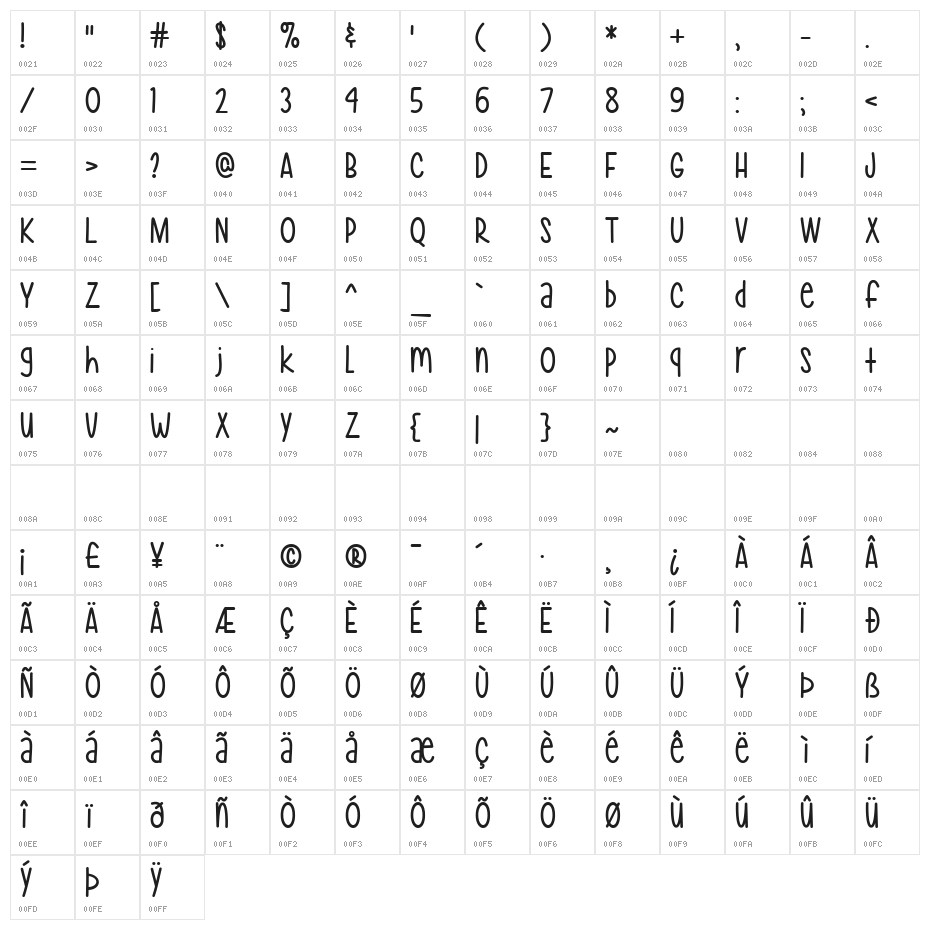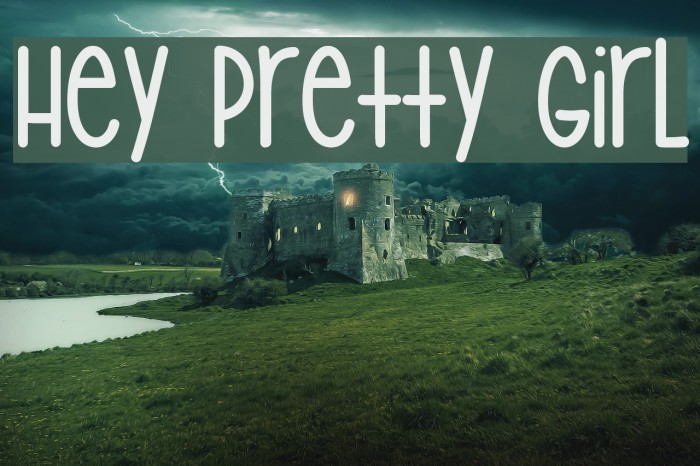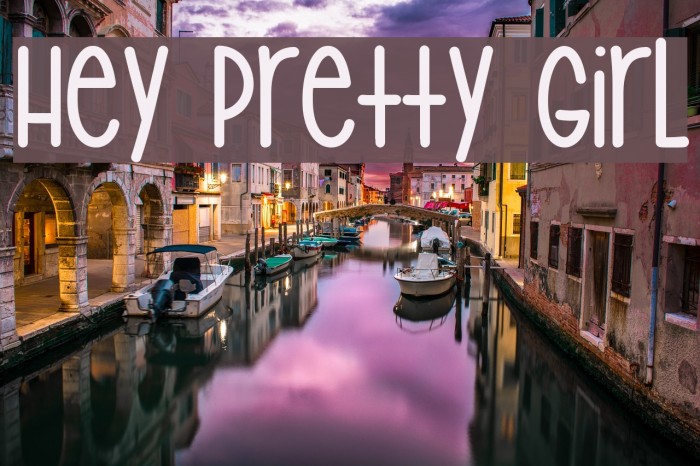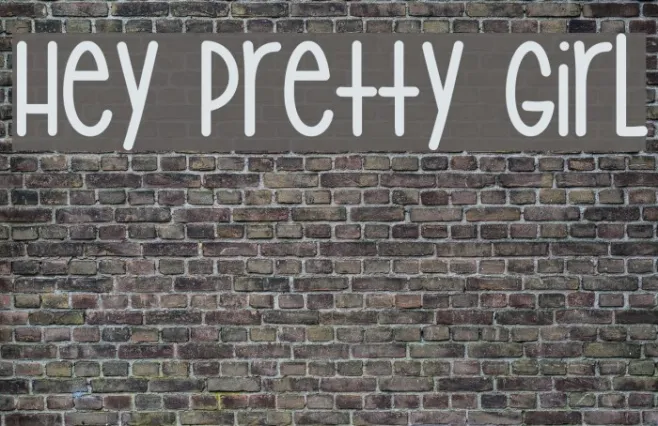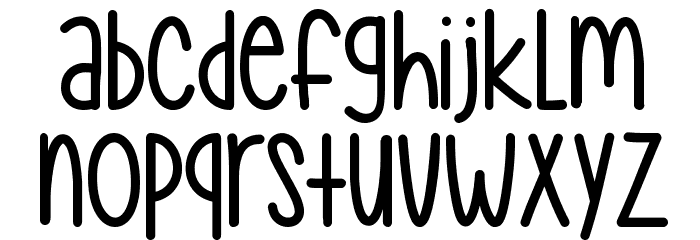
Hey Pretty Girl Font
Hey Pretty Girl Description
This playful and whimsical font features rounded, hand-drawn characters that exude a friendly and approachable vibe. The letters are slightly elongated with a consistent stroke width, giving it a casual and informal appearance. The uppercase and lowercase letters maintain a cohesive style, while the numerals and special characters complement the overall design. Its simplicity and charm make it versatile for various creative projects. The font's design is reminiscent of handwritten notes, adding a personal touch to any text. The spacing between characters is balanced, ensuring readability while maintaining its unique style.
| Overall Style | Playful |
| Use Case | Headlines, Logos, Informal Text |
| Proposed Projects | Ideal for children's books, greeting cards, playful branding, and social media graphics. |